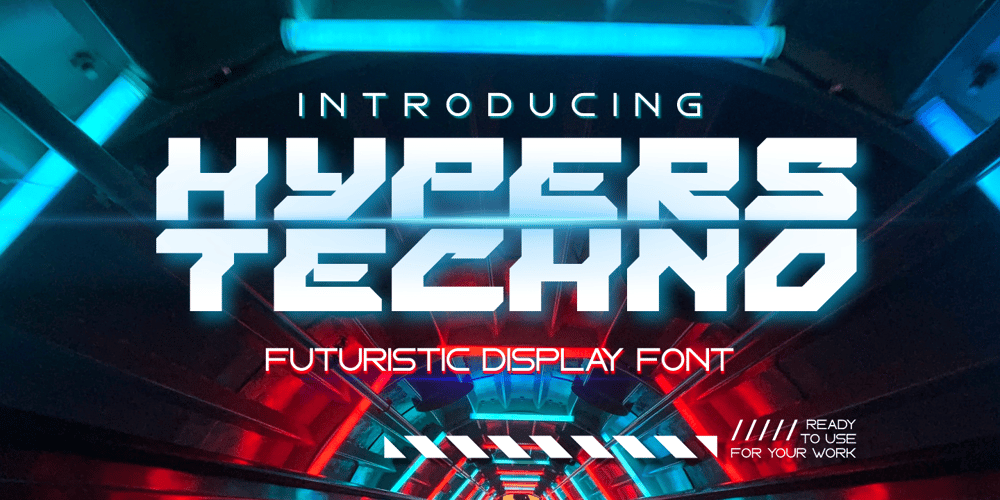
Hypers Techno Font Family was designed by Sipanji and published by Sipanji21. Hypers Techno contains 1 styles and family package options. “Airwars” is a display font with a modern, space, and futuristic theme. This font reflects elements of technology and innovation often associated with modern and futuristic designs. The use of a space theme can also add a sense of space exploration and cosmic wonder to your design. “Airwars” is suitable for a variety of design projects that aim to emphasize these aspects, including space-themed designs, advanced technology, advertisements for futuristic products, and much more. With “Airwars,” you can create designs that reflect a vision of the future and space exploration.